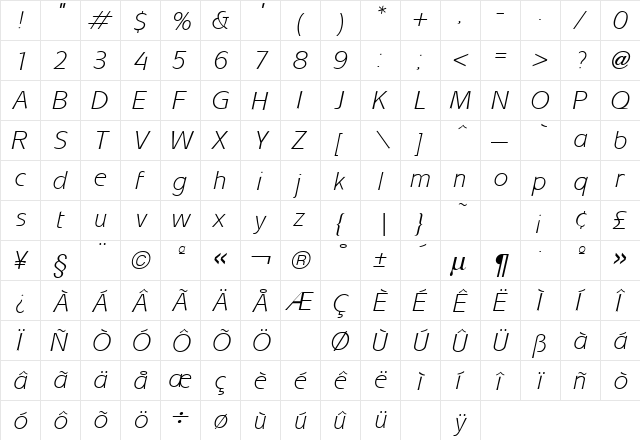
Mixage Italic
Design Context for Mixage Typeface
Mixage is a composed and adaptable typeface that performs quietly and consistently across a wide range of design contexts. The dynamic lean of this cut emphasises speed and emphasis in any layout.
Pro Tip: Try Mixage for annotation and caption copy alongside an upright companion — the contrast in angle creates a dynamic but ordered typographic system.